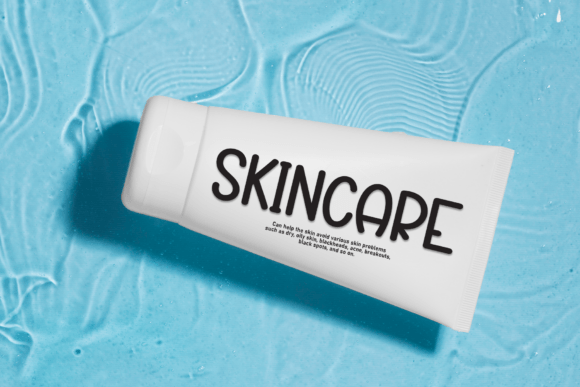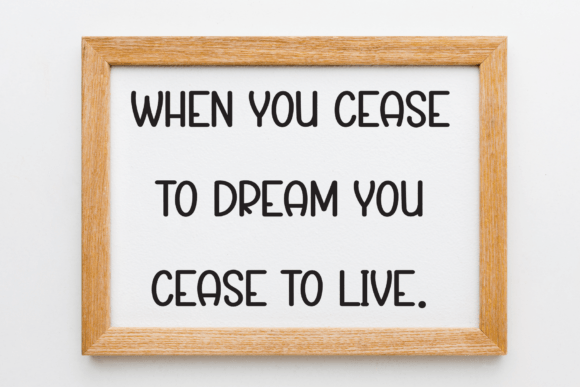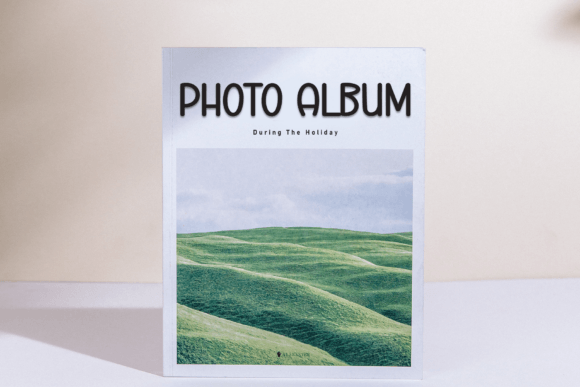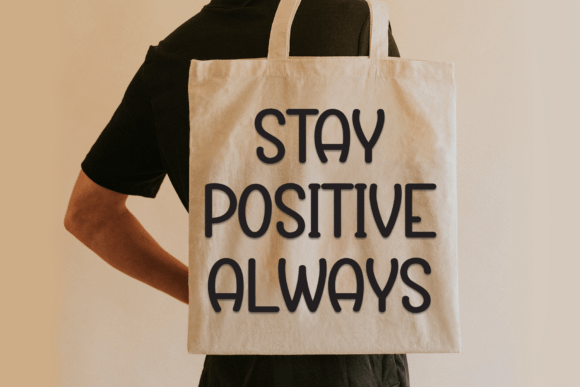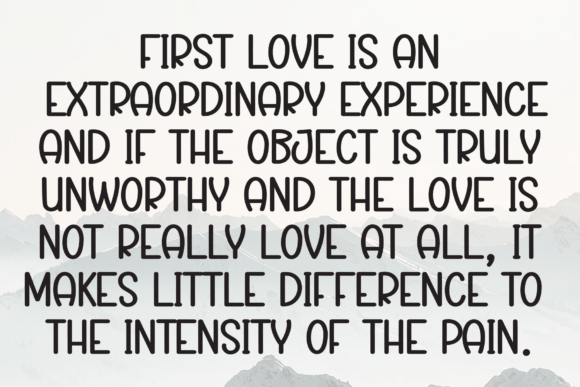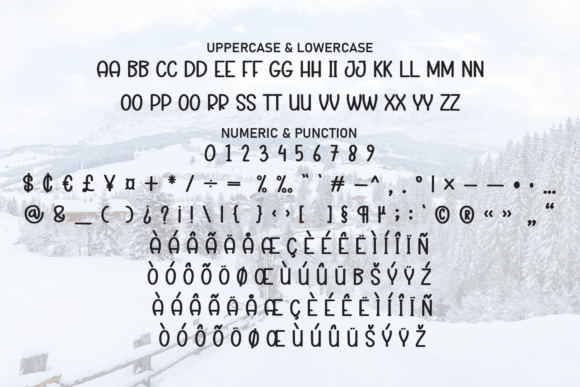
Introduction to Mountain Christmas Font
Meet your new design companion, our charming handwritten-style display font that exudes a warm, inviting aura.
Casually playful yet stylishly sweet, this jovial font is perfect for crafting handwritten wedding invitations or channeling a sprinkle of fun into your greeting cards It’s an excellent choice for every design that craves a dash of lightheartedness, effortlessly transforming every piece into an experience of joy and warmth.
Key Features of Mountain Christmas Font